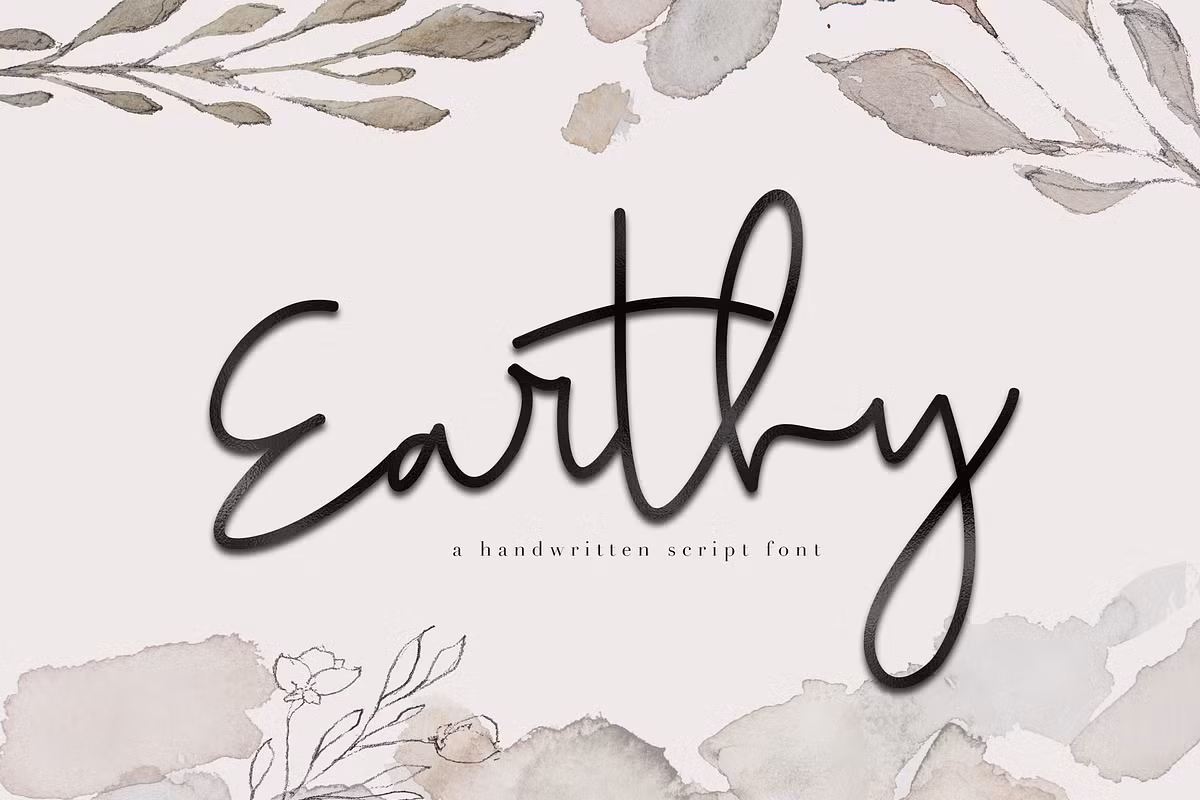
Earthy is a delicate and elegant handwritten script font designed by KA Designs. It is well-suited for a variety of creative projects, including headings, blog titles, logos, branding materials, invitations, and more.
Design Aesthetic: Earthy offers a modern, chic, and organic feel, making it ideal for boho wedding invitations, elegant branding, and other projects that require a sophisticated touch.
Character Support: Earthy includes accent characters, allowing for multilingual support and versatility in design applications.
Incorporating Earthy into your design projects can add a touch of elegance and personalization, enhancing the overall aesthetic appeal.